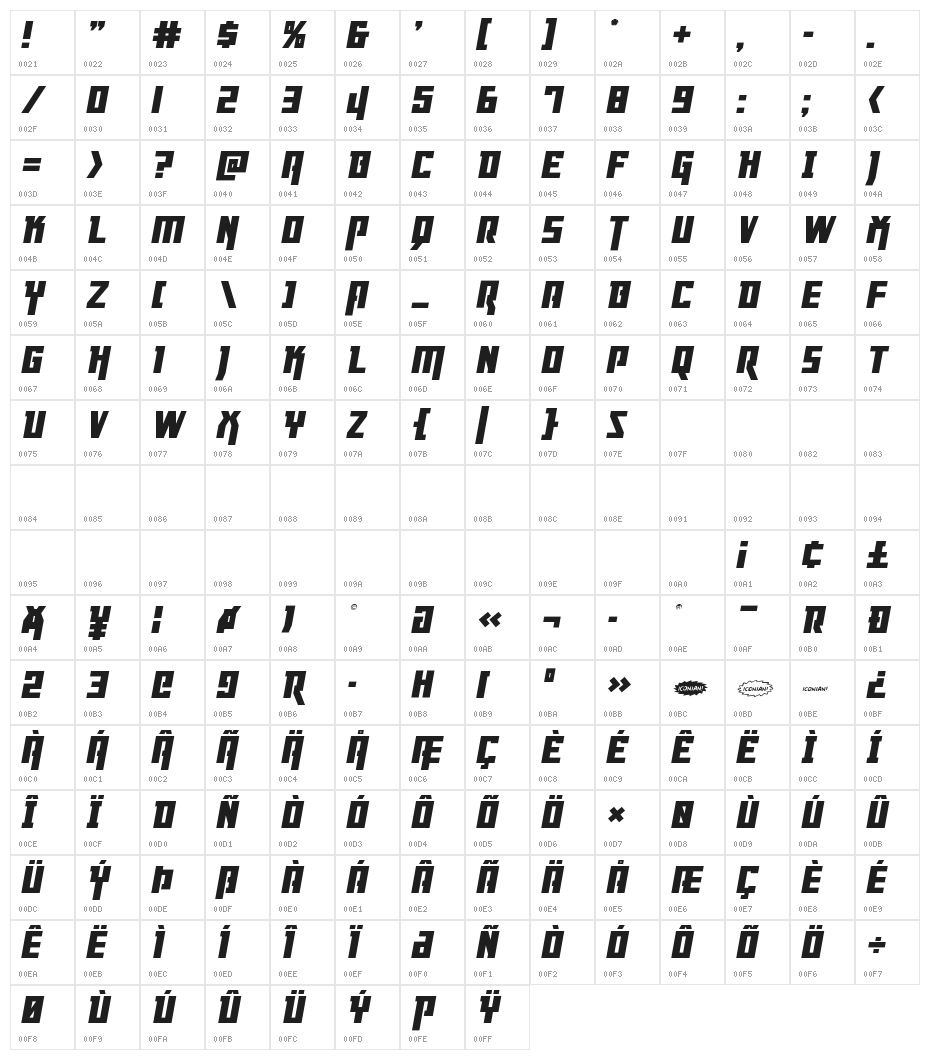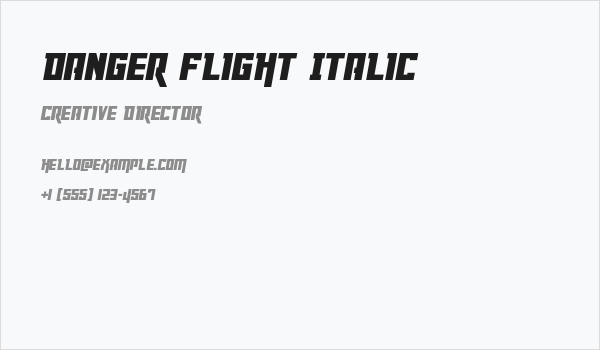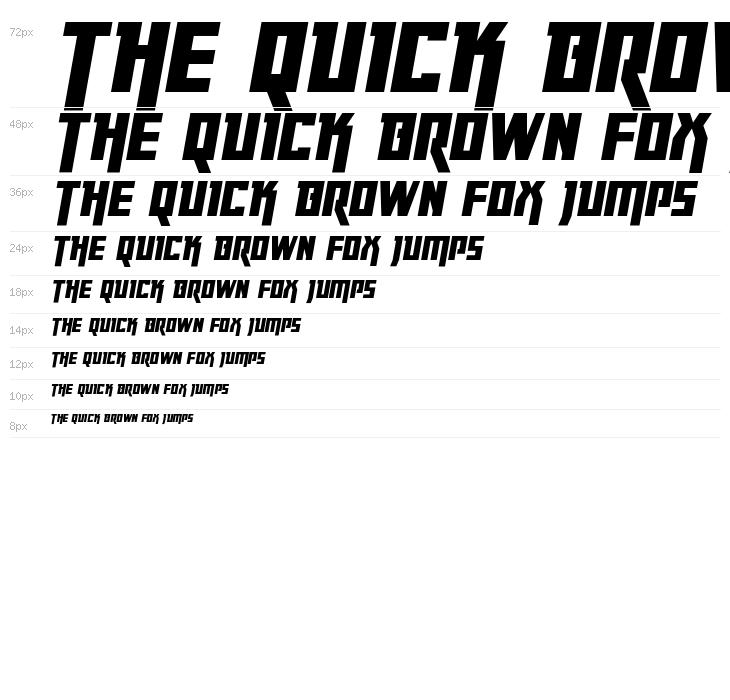
Danger Flight Italic Font
Danger Flight Italic Description
This font features a bold and dynamic design with a strong italic slant, giving it a sense of movement and urgency. The characters are angular and geometric, with sharp edges and a futuristic aesthetic. The uppercase and lowercase letters maintain a consistent style, with the uppercase being particularly striking due to its boldness and angularity. The numbers and special characters follow the same design principles, ensuring a cohesive look across all glyphs. This font is ideal for projects that require a modern and impactful appearance.
| Proposed Projects | Ideal for use in action movie posters, video game titles, sports branding, and any project needing a bold, modern look. |